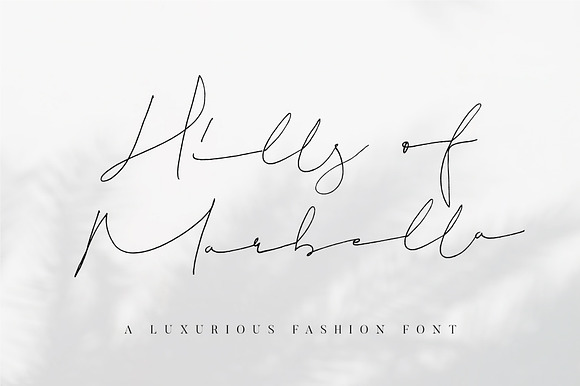
Hills Of Marbella Font
Hills Of Marbella Font by WornOutMedia is a font selected for branding, posters, packaging, typography.
Why Hills Of Marbella Font is worth a look
Hills Of Marbella Font by WornOutMedia fits naturally into Branding, posters, packaging, typography.